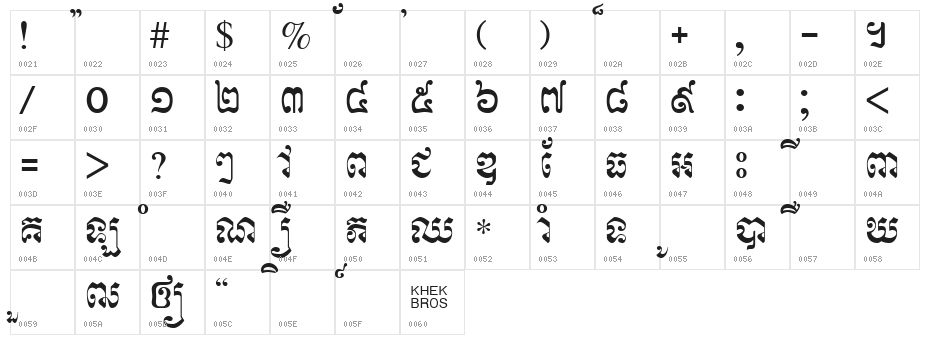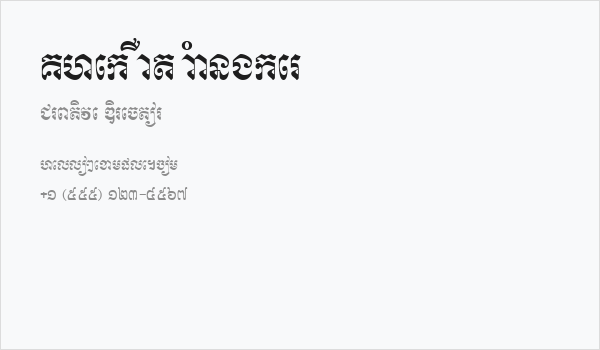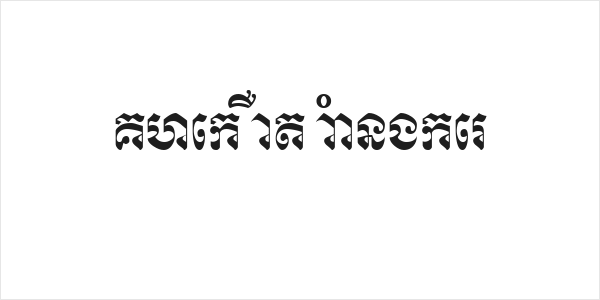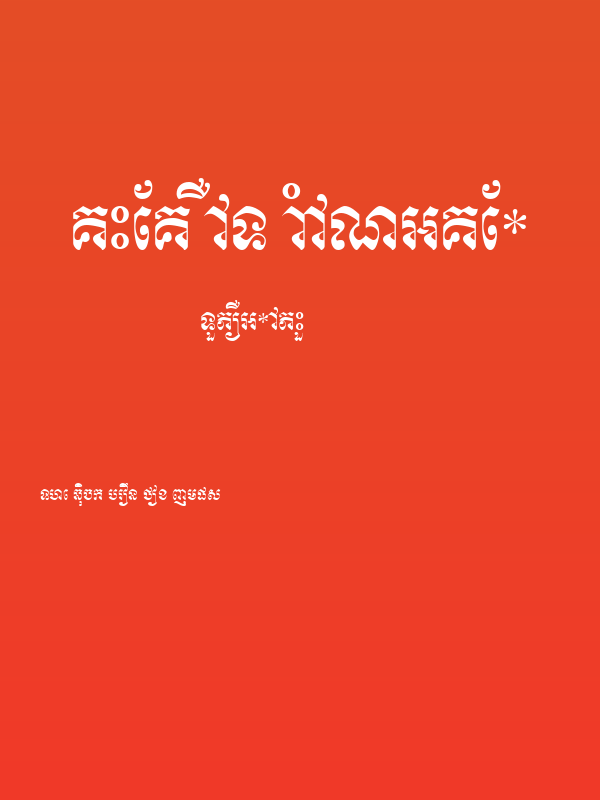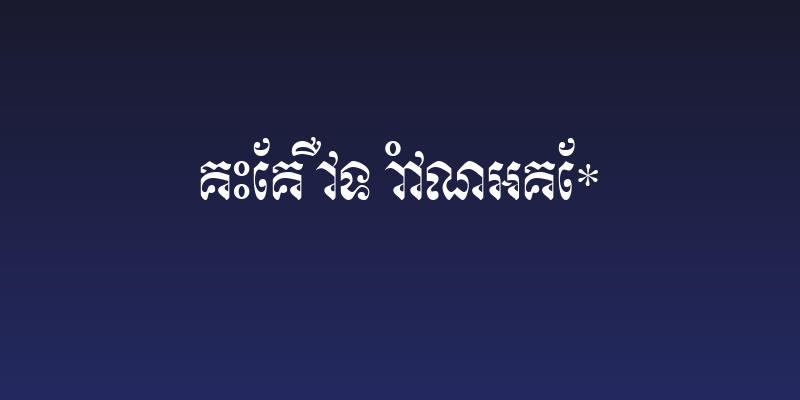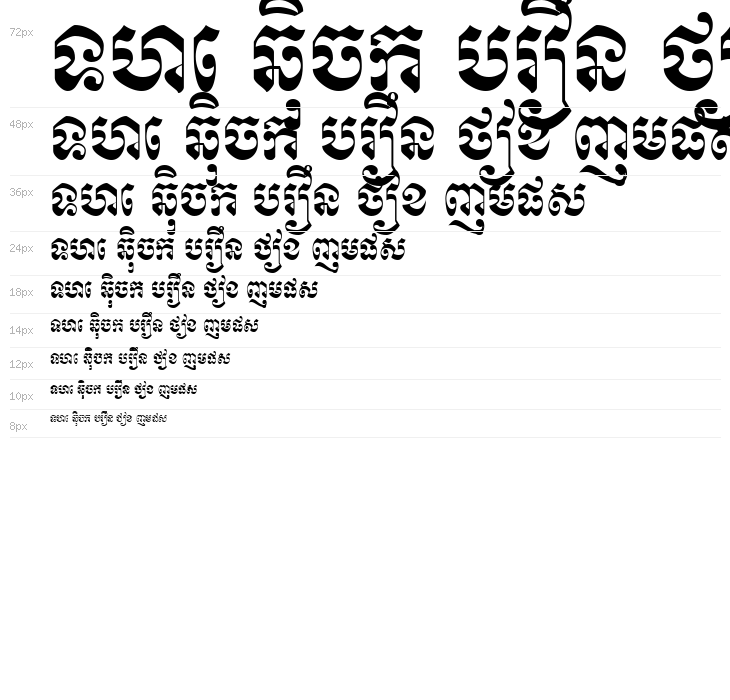
Khek Wat Sangker Font
Khek Wat Sangker Description
This font features a highly decorative and intricate design, showcasing a unique blend of traditional and modern elements. The characters are bold and ornate, with elaborate curves and flourishes that give it a distinctive appearance. The strokes are thick and consistent, providing a strong visual impact. The font includes a wide range of characters, including numerals and special symbols, all maintaining the same stylistic theme. Its artistic flair makes it suitable for projects that require a touch of elegance and cultural richness.
Proposed ProjectsIdeal for cultural event posters, artistic book covers, and branding that requires a traditional yet modern aesthetic.